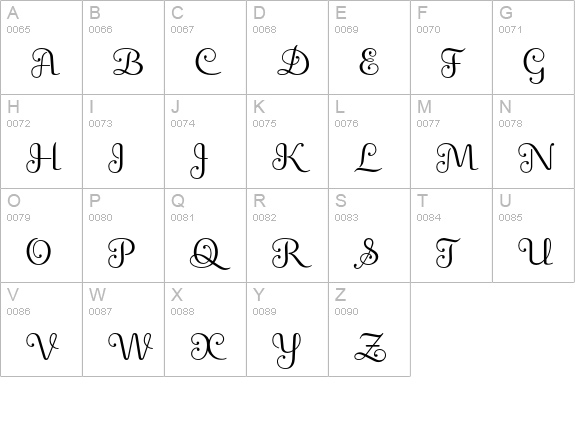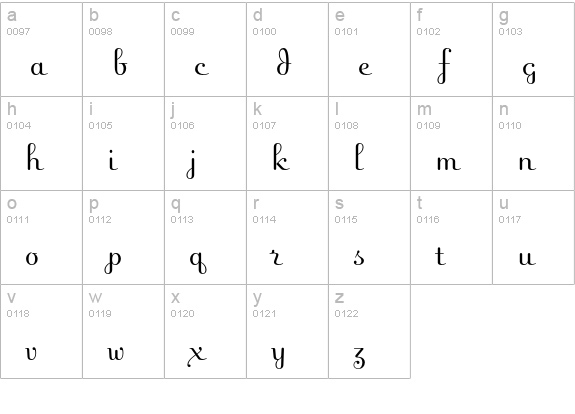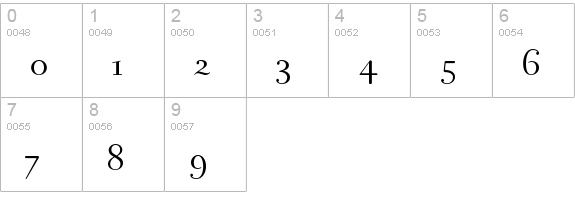
Fling Plain Font Details
Fling Plain font is a versatile and modern typeface that exudes simplicity and elegance. Its clean lines and subtle curves make it perfect for a wide range of design projects, from branding to editorial layouts. The font carries a sense of sophistication while maintaining a friendly and approachable feel. What makes Fling Plain font even more appealing is that it is available for free download at FontsMarket.com. This means you can easily access and use this beautiful font in your projects without any cost. Don't miss out on the opportunity to enhance your designs with Fling Plain font's timeless style and effortless charm. Download it today and let your creativity flourish!